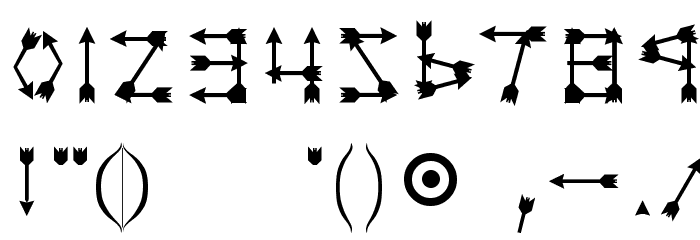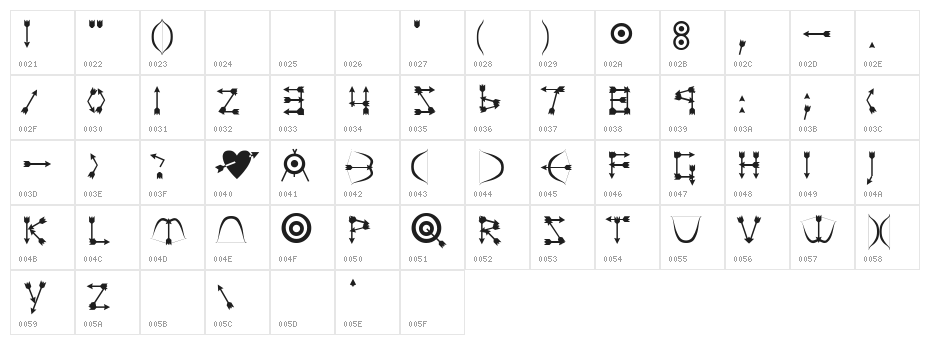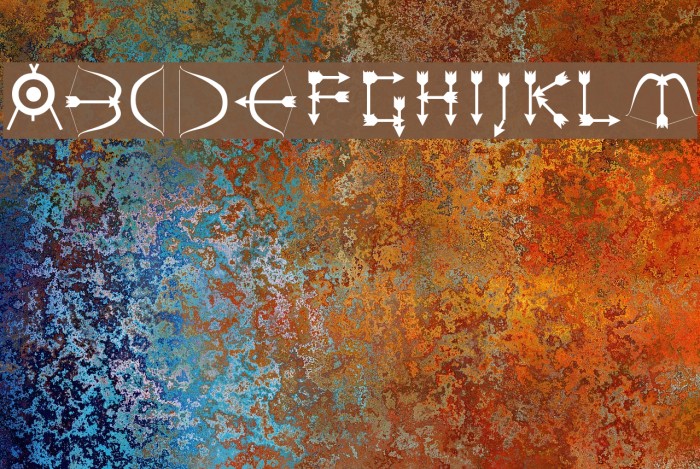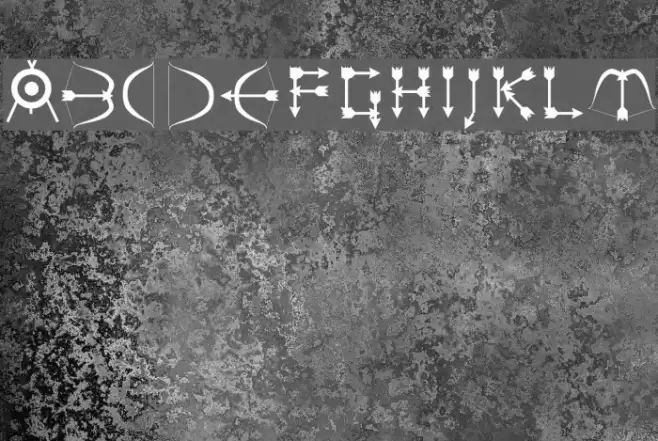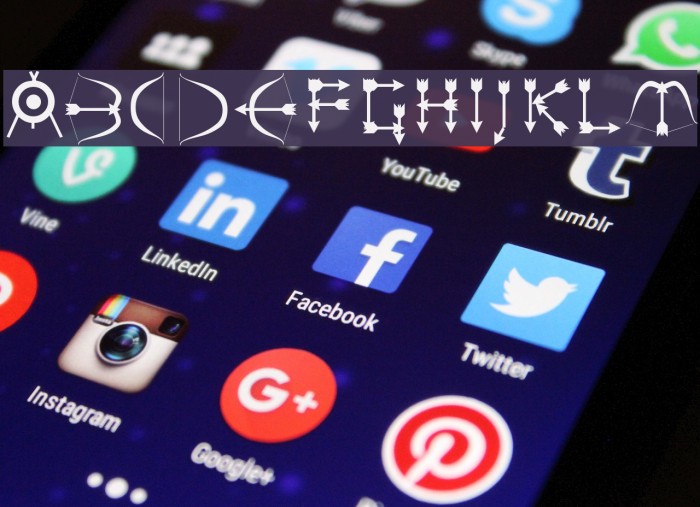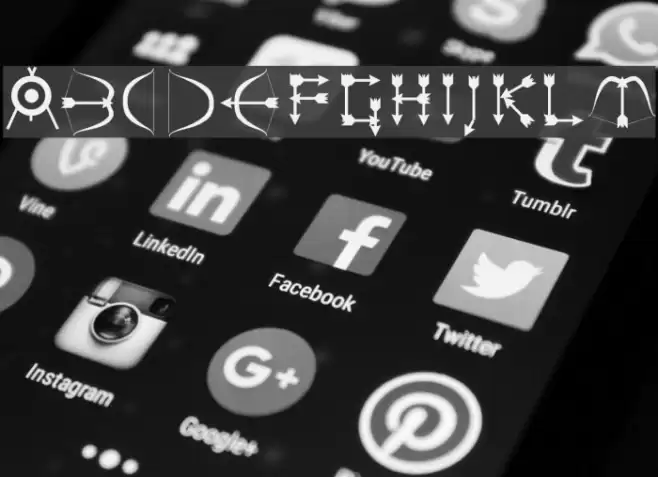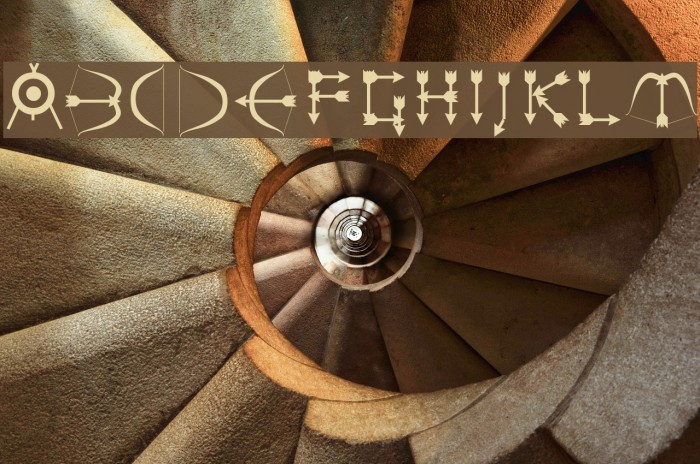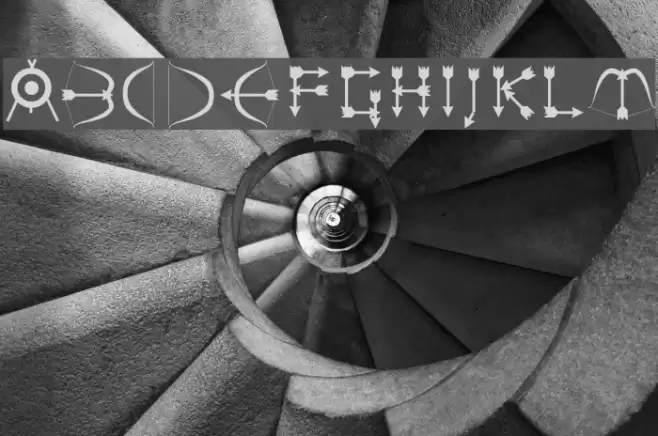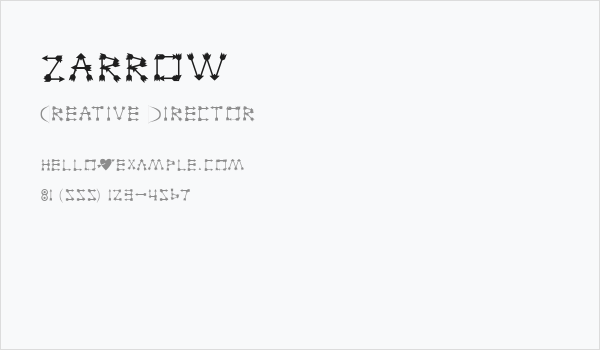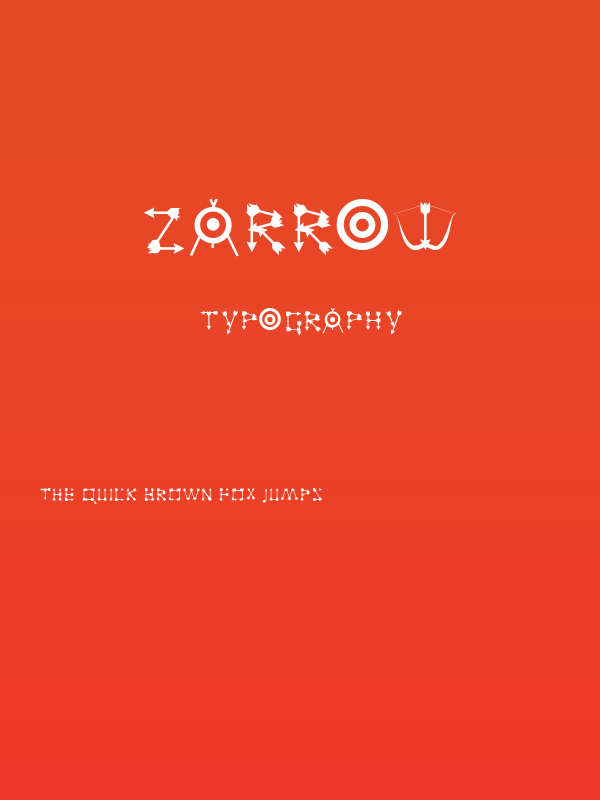
Zarrow Font
Zarrow Description
This font features a unique and bold design where each character is constructed using arrow motifs. The arrows are cleverly integrated into the structure of each letter and number, creating a dynamic and eye-catching appearance. The uppercase and lowercase letters maintain a consistent style, with arrows pointing in various directions to form the shapes. The numbers and special characters also follow this theme, ensuring a cohesive look throughout. This font is highly decorative and stands out due to its unconventional design, making it suitable for projects that require a strong visual impact.